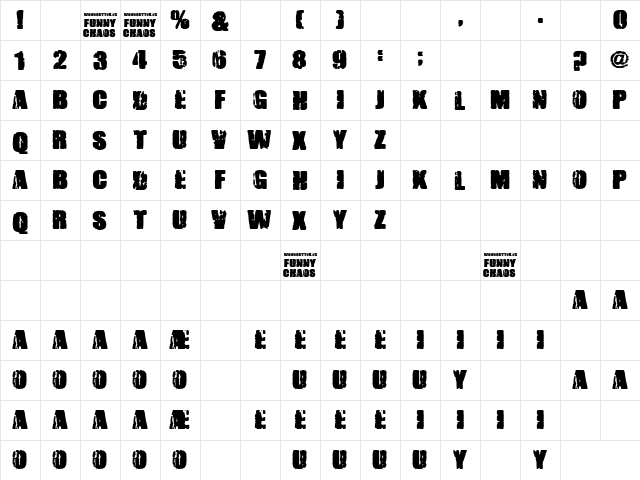
FUNNY CHAOS Regular
Design Context for FUNNY CHAOS Typeface
FUNNY CHAOS trades formality for fun, with bouncy, characterful letterforms that bring warmth and energy to any project.
Font Pairing: Pairs well with a rounded or humanist sans for body copy, maintaining the friendly tone without relying on FUNNY CHAOS to carry extended reading.
Pro Tip: Use FUNNY CHAOS at larger display sizes where its expressive character can land. Pair with a clean, simple sans for body copy to maintain readability.